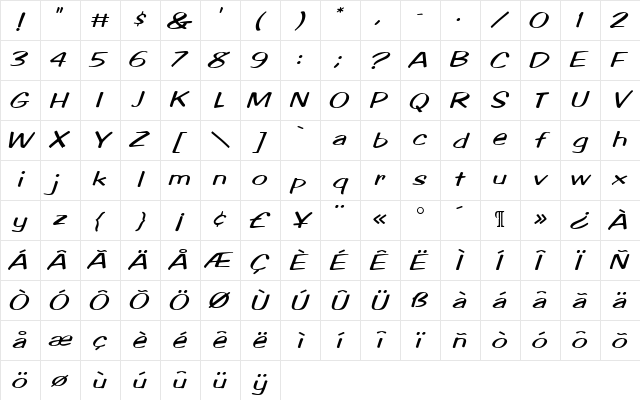
Britches Regular
Foundry: Panache Graphics
Design Context for Britches
Britches is a composed and adaptable typeface that performs quietly and consistently across a wide range of design contexts.
Pro Tip: Use Britches in both headline and body roles to test its range before committing to a single application.